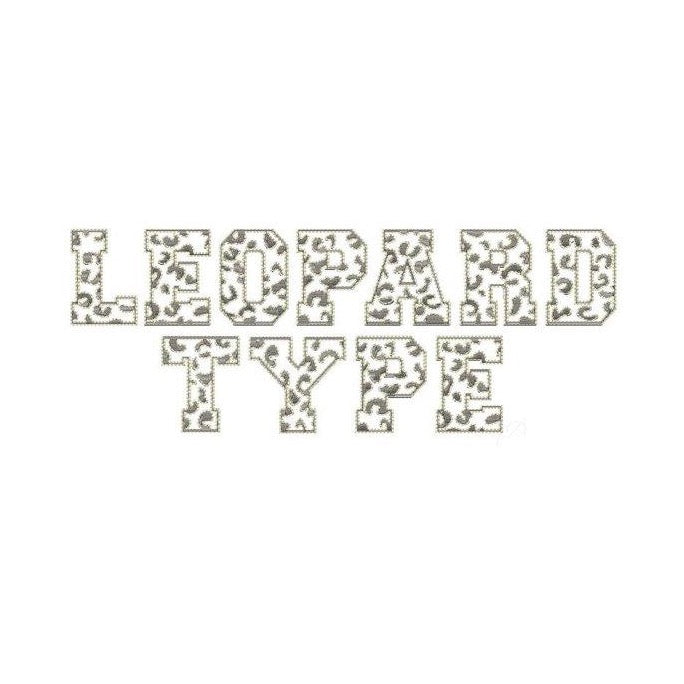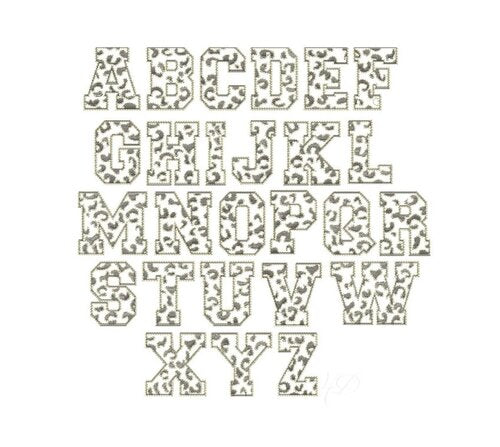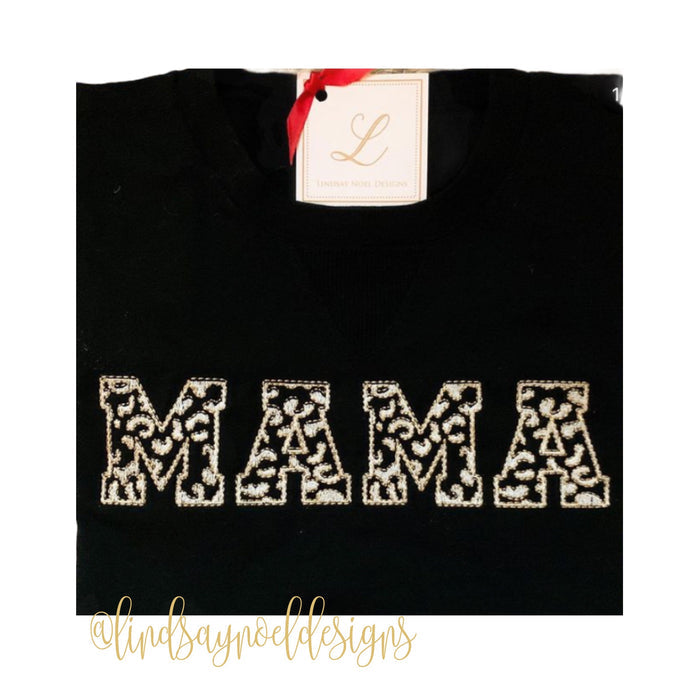
Leopard Embroidery Font Package
The Leopard Embroidery Fill stitch font includes 26, numbers 0-9 and a Dot and Dash for monograms in each size included in this 4x4 hoop package.
The letters are for embroidery machine monogramming in a two-color contrasting embroidery fill letters and redwork stitch outline.